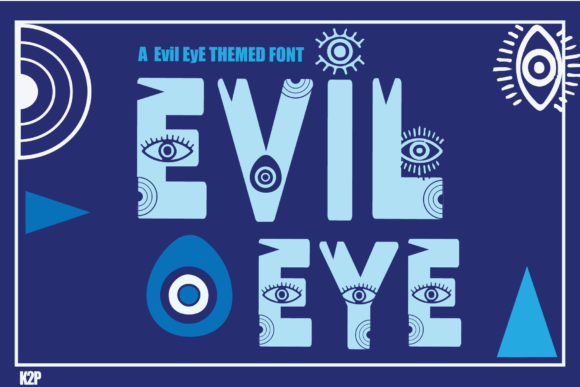
Evil Eye Font: A Unique Decorative Font for Your Creative Projects
The Evil Eye Font is a thick-lettered and uniquely designed decorative font that has gained popularity among designers, crafters, and DIY enthusiasts. Its distinctive style and versatility make it an excellent choice for a wide range of projects, from creative crafts to digital designs. In this article, we’ll explore the features and benefits of the Evil Eye Font, and how it can elevate your creative projects.
What is Evil Eye Font?
The Evil Eye Font is a decorative font designed with a thick, bold lettering style that gives it a distinctive and eye-catching appearance. Its unique design makes it stand out from other fonts, and its versatility allows it to be used in various projects, including crafts, digital designs, and even commercial products.
Key Features of Evil Eye Font
- Thick-Lettered Design: The Evil Eye Font features a thick, bold lettering style that gives it a distinctive and eye-catching appearance.
- Unique Design: The font’s unique design makes it stand out from other fonts, and its versatility allows it to be used in various projects.
- Decorative Style: The font’s decorative style makes it perfect for use in creative projects, such as crafts, digital designs, and commercial products.
Benefits of Using Evil Eye Font
The Evil Eye Font offers several benefits to designers, crafters, and DIY enthusiasts. Some of the benefits include:
Versatility
The Evil Eye Font is versatile and can be used in a wide range of projects, from creative crafts to digital designs. Its unique design and decorative style make it an excellent choice for various applications.
Ease of Use
Unique Designs
The Evil Eye Font features a unique design that makes it stand out from other fonts. Its thick-lettered style and decorative swashes give it a distinctive appearance that can add a touch of elegance and sophistication to your projects.
Uses of Evil Eye Font
The Evil Eye Font is suitable for a wide range of projects, including:
Crafts
The Evil Eye Font is perfect for use in craft projects, such as scrapbooking, card making, and DIY decorations. Its unique design and decorative style make it an excellent choice for adding a personal touch to your crafts.
Digital Designs
The Evil Eye Font can be used in digital designs, such as graphic design projects, social media graphics, and website headers. Its bold and eye-catching style makes it perfect for use in digital designs that require a unique and decorative font.
Commercial Products
The Evil Eye Font can be used in commercial products, such as product labels, packaging, and branding materials. Its unique design and decorative style make it an excellent choice for businesses looking to create a distinctive brand identity.
Tips for Using Evil Eye Font
Here are some tips for using the Evil Eye Font:
Experiment with Different Sizes
The Evil Eye Font can be used in various sizes, from small to large. Experiment with different sizes to find the one that works best for your project.
Combine with Other Fonts
The Evil Eye Font can be combined with other fonts to create a unique and interesting design. Experiment with different font combinations to find the one that works best for your project.
Use in Combination with Images
The Evil Eye Font can be used in combination with images to create a visually appealing design. Experiment with different image combinations to find the one that works best for your project.
The Evil Eye Font is a unique and decorative font that is perfect for use in a wide range of projects, from creative crafts to digital designs. Its thick-lettered design, unique style, and PUA encoding make it an excellent choice for designers, crafters, and DIY enthusiasts. With its versatility and ease of use, the Evil Eye Font is a great addition to any creative project.